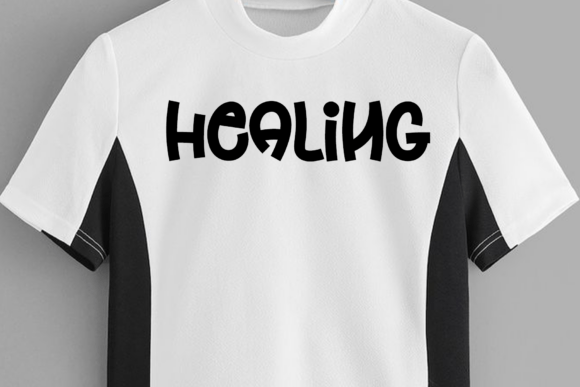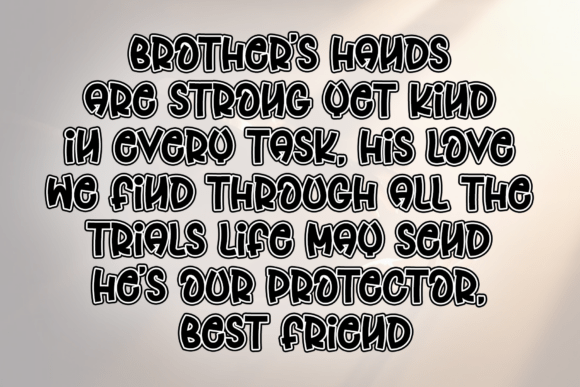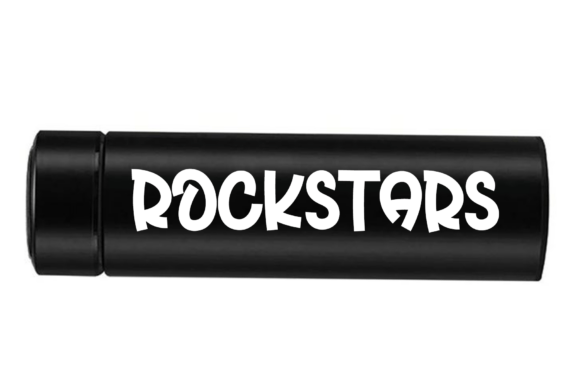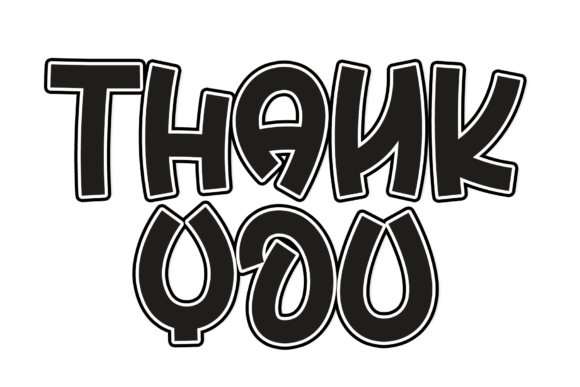
Meet Your New Design BFF: Baby Smart Font
Do you remember the moment when a single font choice made all the difference in a project? For many designers, it’s the ‘aha’ moment that turns a good design into a great one. Perhaps it was the subtle curves of a script font or the bold strokes of a sans-serif that elevated the entire look. Whatever it was, you know how transformative a well-chosen font can be.
Enter Baby Smart Font, a charming handwritten font that’s sure to become your new design sidekick. With its unique, beautiful touch, Baby Smart Font is perfect for creating eye-catching logos, branding, and quotes that truly stand out. Whether you’re a seasoned pro or just starting out, this lovely font is a valuable addition to your design toolkit.
Baby Smart Font Key Features
- Font Family: Baby Smart Font is a unique, hand-drawn font designed specifically for children’s products and educational materials.
- Font Size: The font is available in 6 font sizes, ranging from 8pt to 48pt, making it suitable for various applications, from small product labels to large signage.
- Resolution: Designed to be scalable, Baby Smart Font maintains its quality and legibility at resolutions up to 300 DPI, ensuring it looks great on various mediums.
- Unique Characteristics: The font features playful, rounded shapes and vibrant colors, making it perfect for creating engaging and child-friendly designs.
- Language Support: Baby Smart Font supports a wide range of languages, including Latin, Cyrillic, and Greek, making it an excellent choice for global brands and products.
Baby Smart Font Review
Overall, I think the Baby Smart Font is a nice addition to any project, but it has its limitations. Let’s dive into what works well and what doesn’t.
- Unique design: The Baby Smart Font has a distinct look that can add a touch of personality to your project.
- Clear readability: The font is easy to read, even at smaller sizes, which is a must for any font.
- Good for titles: The font’s bold and playful nature makes it perfect for titles and headings.
- Limited versatility: The font is quite specific in its design, which can make it difficult to use in a wide range of projects.
- Not suitable for body text: The font’s bold and playful nature can make it overwhelming when used for large blocks of text.
- Needs to be used thoughtfully: The font requires a bit of restraint to avoid overwhelming the design.
Overall, I think the Baby Smart Font is a fun and unique addition to any project, but it’s not a font I would use for every project. With a bit of creativity and restraint, it can be a great choice for the right project.
Practical Application Guide: Baby Smart Font
Tips for Getting the Most Out of Baby Smart Font
Use Baby Smart Font to create engaging and eye-catching designs for baby-related products, such as nursery decor, baby clothing, and nursery rhyme books.
Combine Baby Smart Font with other creative elements, such as illustrations and graphics, to create unique and memorable designs.
Baby Smart Font is perfect for:
- Baby nursery decor and wall art.
- Baby clothing and accessories.
- Nursery rhyme books and children’s literature.
- Party invitations and decorations.
Alternatives to Baby Smart Font for Designers
Great Vibes is a modern, elegant script font perfect for creating a sense of sophistication and luxury. It’s ideal for use in high-end branding, packaging, and advertising materials. Compared to Baby Smart Font, Great Vibes has a more refined and polished look, making it suitable for a wider range of applications.
Pacifico is a beautiful, cursive font that exudes a sense of relaxation and calmness. It’s perfect for use in travel, wellness, and lifestyle branding, as well as in publications and websites that require a soothing atmosphere. Unlike Baby Smart Font, Pacifico has a more laid-back and casual feel, making it ideal for applications where a relaxed tone is desired.
Carolyna Pro is a sophisticated, handwritten font that combines elegance with a touch of whimsy. It’s suitable for use in fashion, beauty, and lifestyle branding, as well as in publications and websites that require a touch of luxury. Compared to Baby Smart Font, Carolyna Pro has a more refined and polished look, making it perfect for high-end applications.
Are the Baby Smart Font fonts customizable?
The Baby Smart Font is a variable font, which means it allows for a wide range of customization options, including font weight, slant, and optical size. You can use font editing software like FontLab or Glyphs to access these customization options.